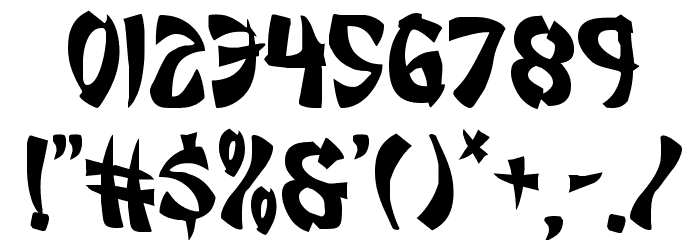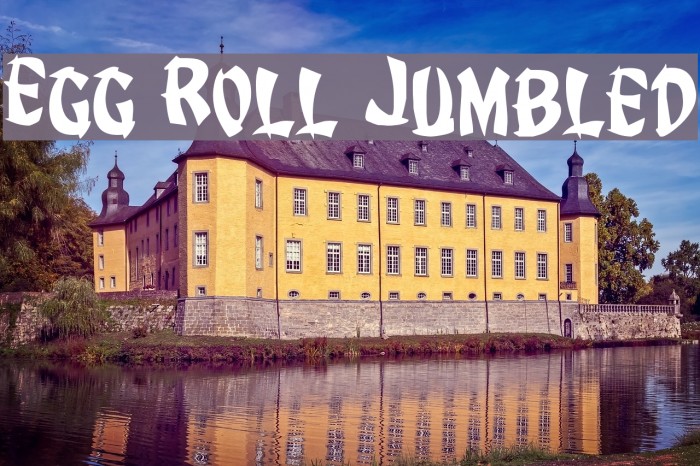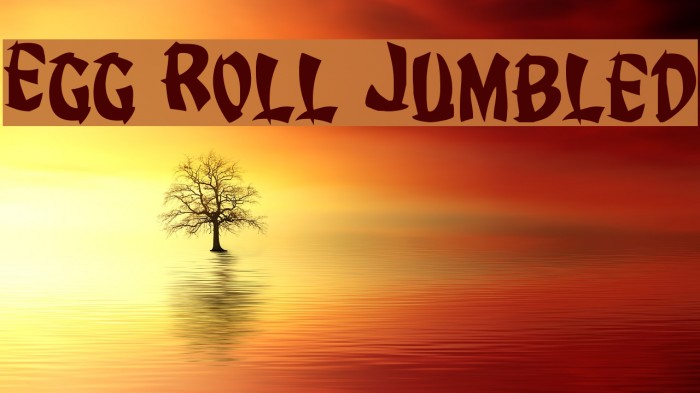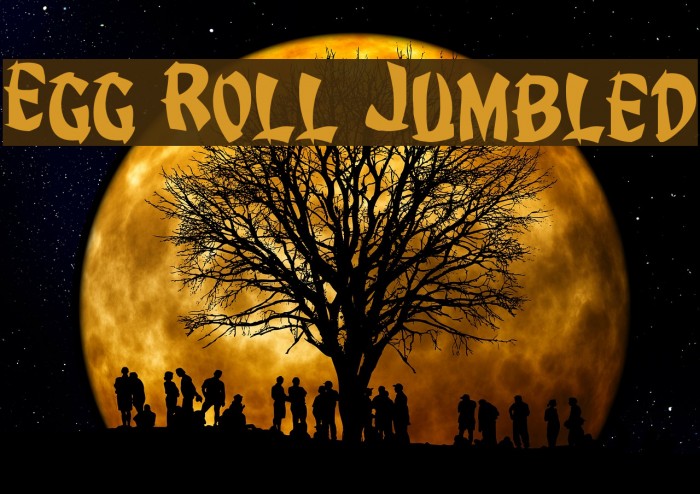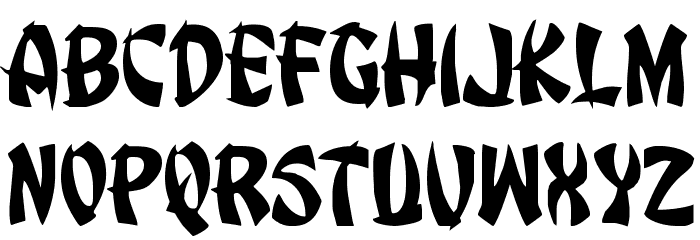
Egg Roll Jumbled Font
This font features a bold and dynamic style with a playful and slightly chaotic appearance. The characters are thick and robust, with exaggerated curves and sharp angles that create a sense of movement and energy. The uppercase and lowercase letters maintain a consistent weight, contributing to a cohesive look. The numbers and special characters follow the same design principles, ensuring uniformity across all glyphs. This font's unique style makes it stand out, offering a visually striking option for creative projects.
A bold, dynamic font with playful, exaggerated curves and sharp angles.
• Proposed Projects: Ideal for posters, album covers, video game graphics, and any project needing a bold, energetic typeface.
• Category: Decorative/Display
• Contrast: Medium
• Overall Style: Decorative
• Use Case: Headlines, Logos, Posters